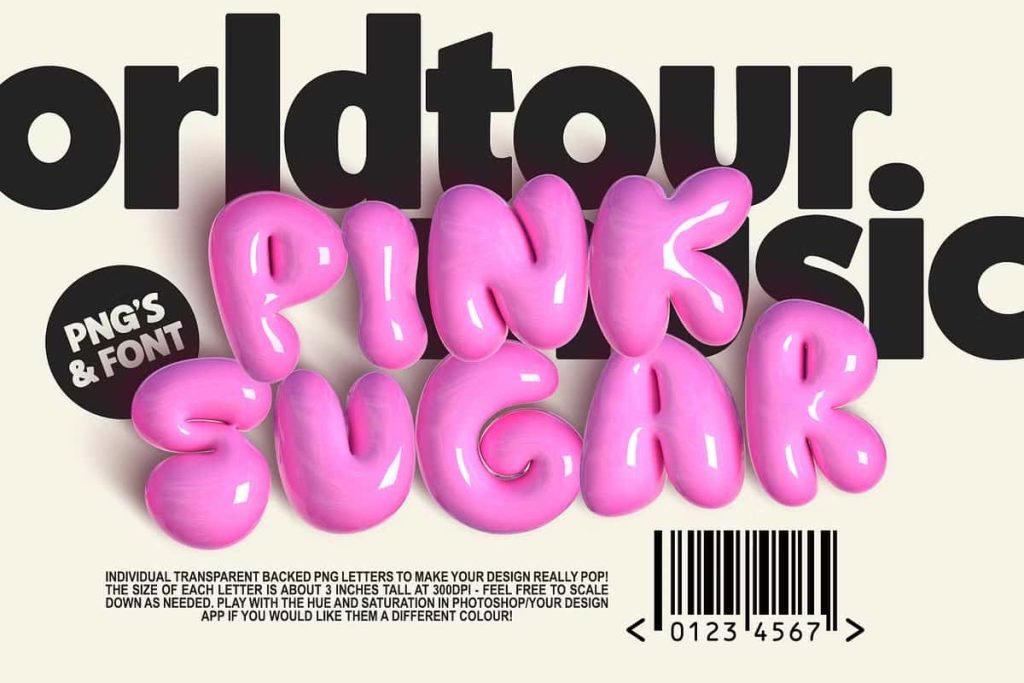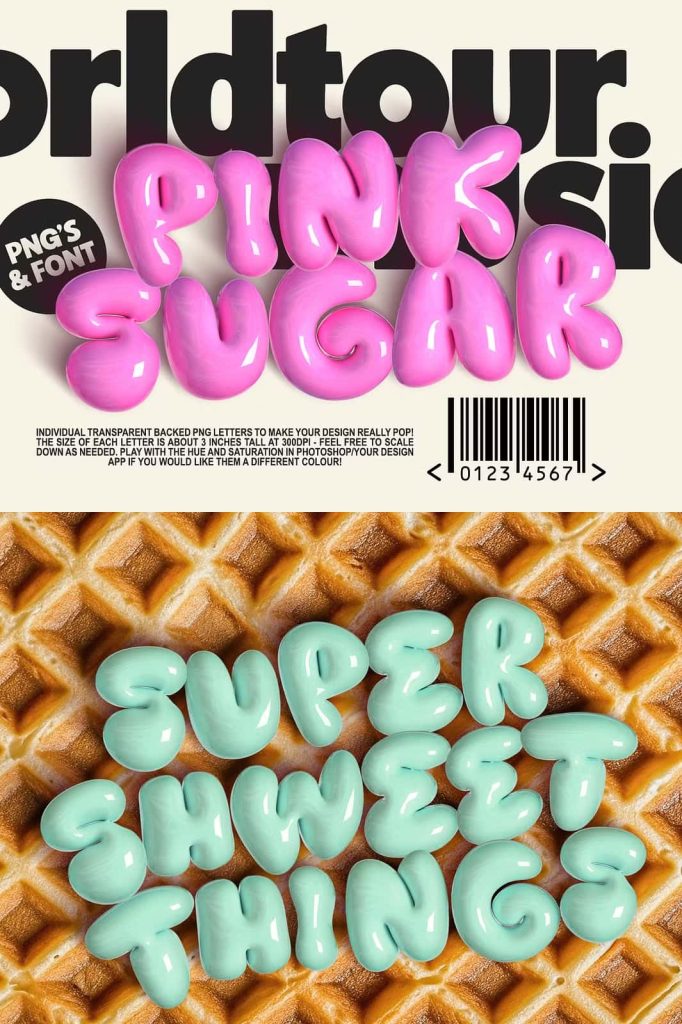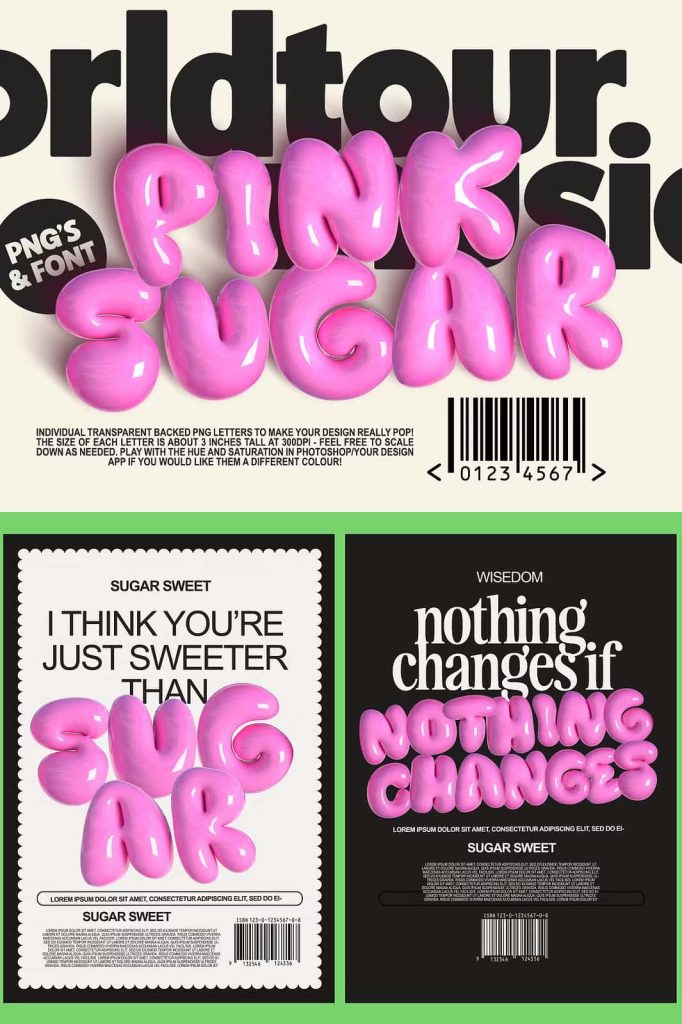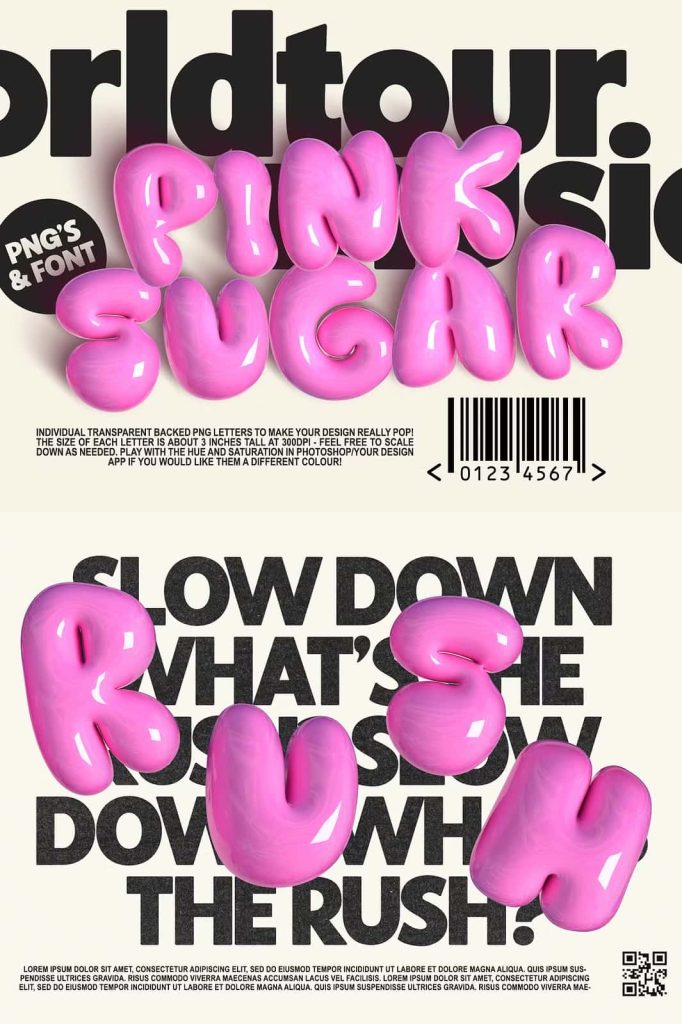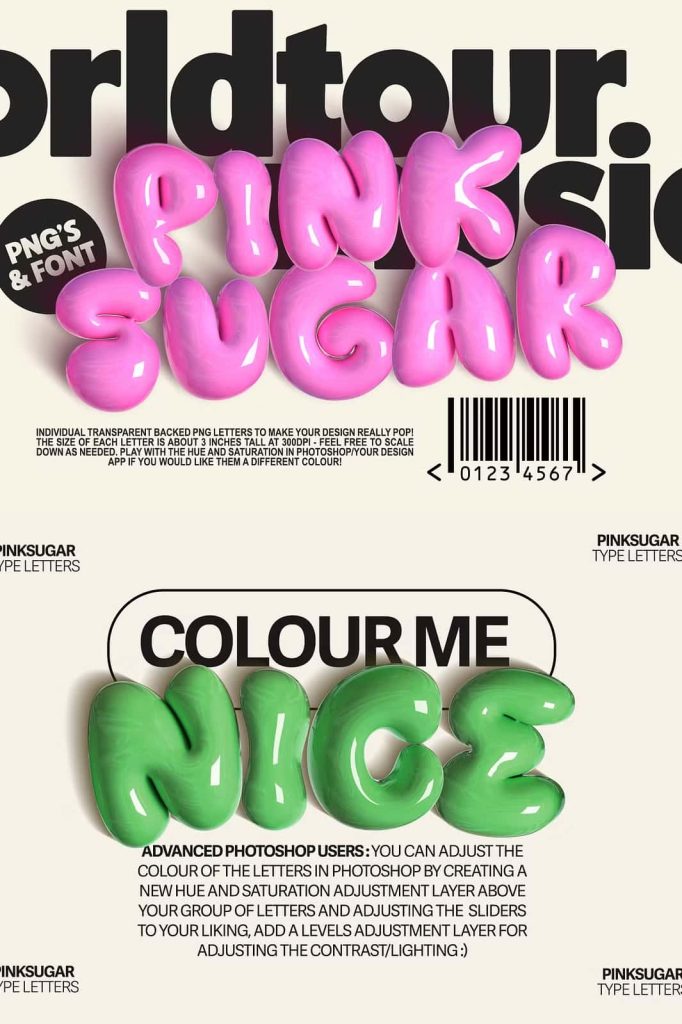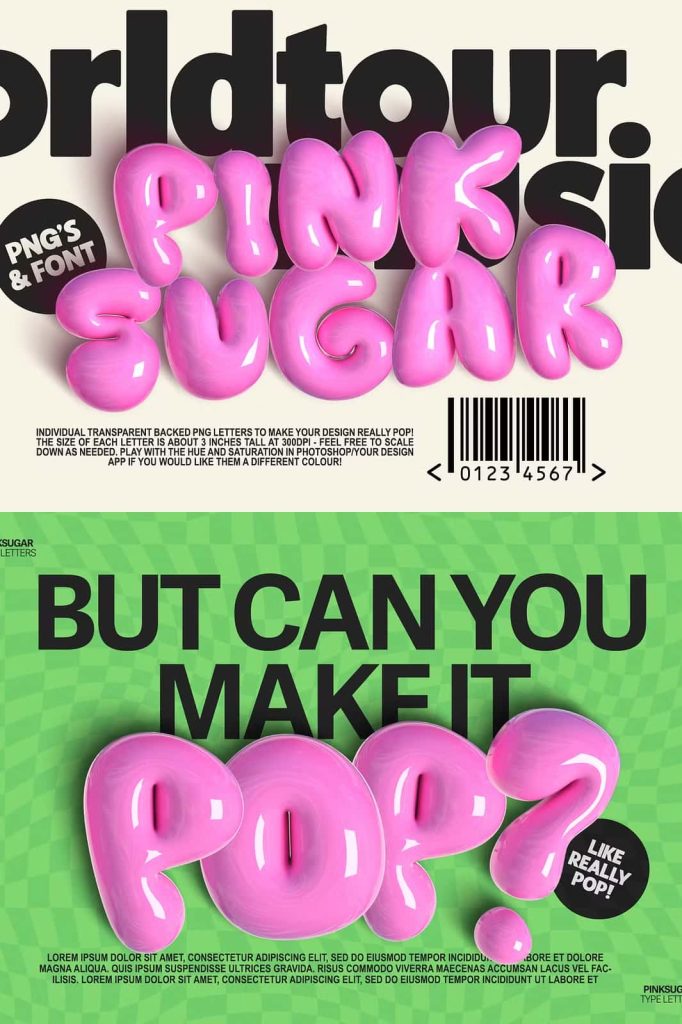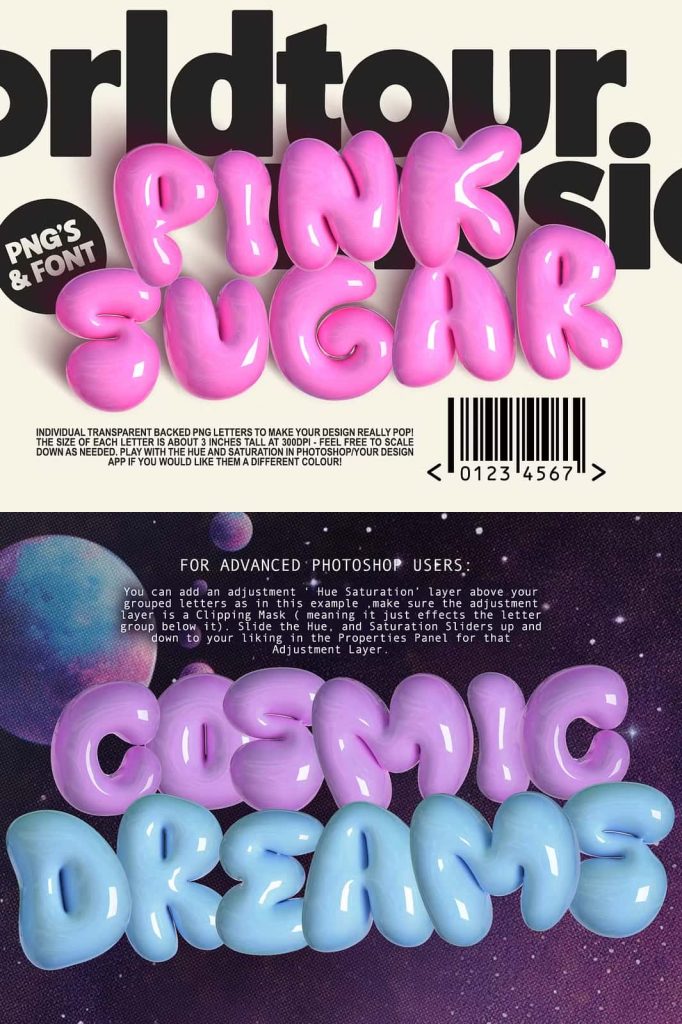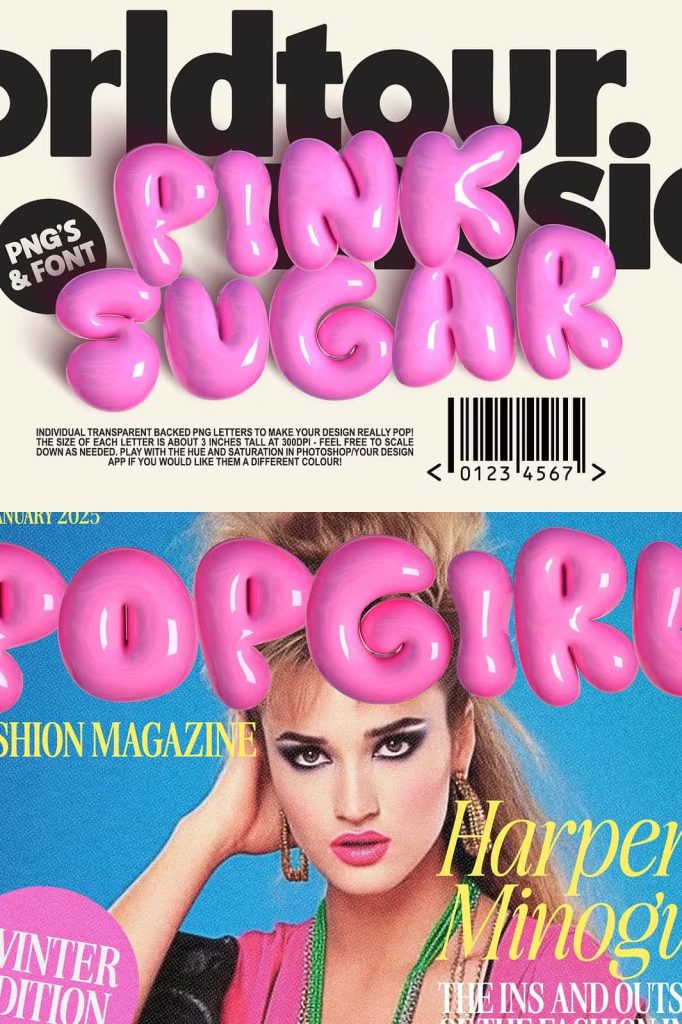
This pack includes a full character set of super shiny pink png 3D letters, and a matching SVG Bitmap font, although you’ll find the PNG letters more versatile( read more below ).
If you own Photoshop, and have moderate PS skills, you can tweak the colour of the letters to your liking 🙂 I’ve included links to 2 little example PSDs for adding a realistic shadow effect, and demonstrating colour tweaking 🙂 Make sure you are using PS CC20+, if you’d like to use them 🙂